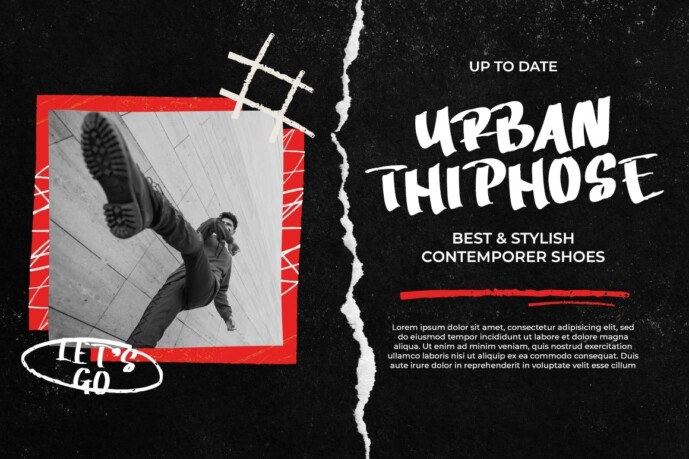
Ragnarok Font
Designer: fatmastudio
Ragnarok Font is a flowing brushed handwritten font, described by a ravishing touch, perfect for your creative ideas. Fall in love with its fashionable and daring style and use it to create lovely designs!